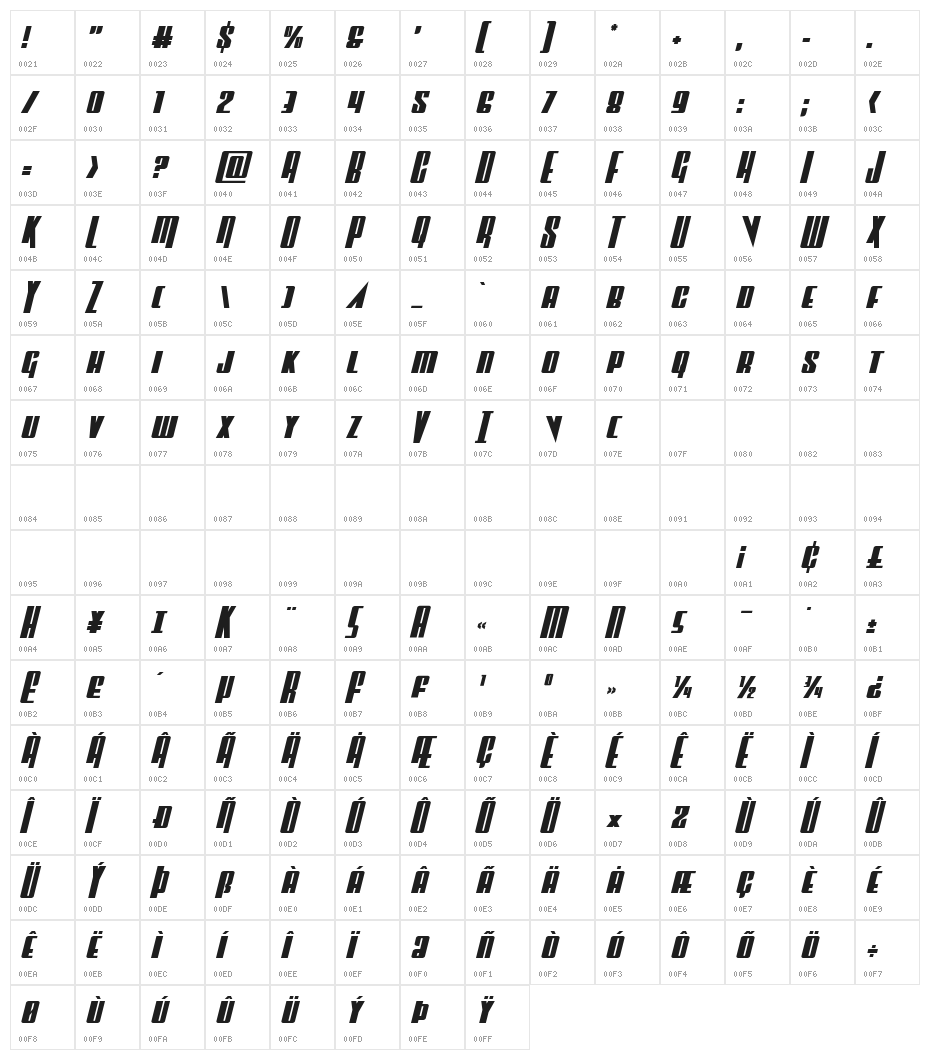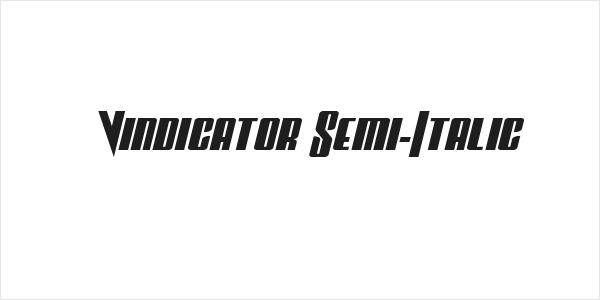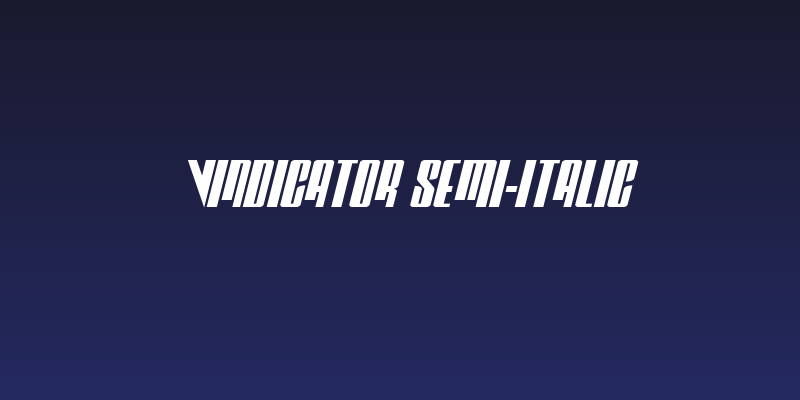
Vindicator Semi-Italic Font
Vindicator Semi-Italic Description
This font exhibits a bold and dynamic style with a strong presence. The characters are slanted, giving it an italicized appearance, while maintaining a robust and angular design. The strokes are thick and consistent, contributing to a high contrast look that commands attention. The uppercase and lowercase letters share a cohesive design, with sharp edges and a slightly condensed form. The numerals and special characters follow the same bold and angular aesthetic, ensuring uniformity across all glyphs. This font is ideal for making a statement, with its striking and assertive style.
| Proposed Projects | Ideal for sports branding, action movie posters, video game titles, and dynamic advertising campaigns. |